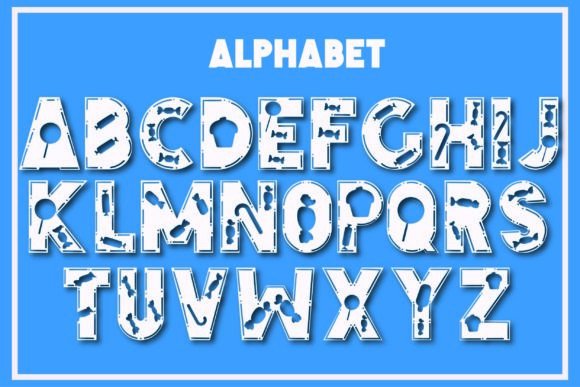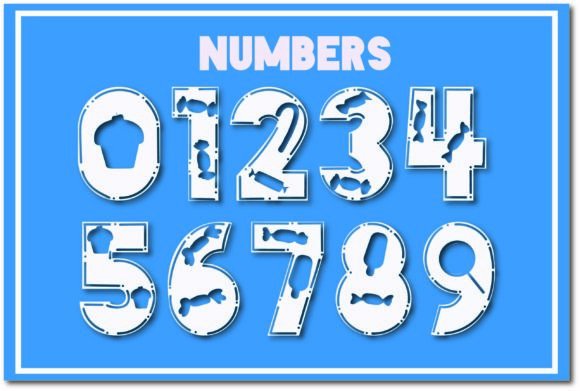
Candy Font: The Sweetest Addition to Your Typography Collection
Are you a designer, crafter, or DIY enthusiast looking for a font that can add a touch of sweetness to your creations? Look no further than the Candy font! This adorable decorative font is perfect for a wide range of projects, from party invitations and baking blogs to candy-themed branding and more. In this article, we’ll dive into the world of Candy font, exploring its features, uses, and benefits, as well as provide tips on how to make the most of this lovely typography.
What is Candy Font?
Candy font is a digital typeface designed to resemble the colorful, playful, and whimsical world of candies. Its letters and numbers are crafted to look like they’re made of sugar, with bold lines, rounded edges, and a dash of sparkle. This font is perfect for adding a pop of fun and personality to any design project. Whether you’re creating a logo, a social media graphic, or a party invitation, Candy font is sure to make your work stand out.
Features of Candy Font
- Cute and Lovely Design: The Candy font boasts a delightful design that’s sure to capture the hearts of anyone who sees it. Its adorable letters and numbers are perfect for creating visually appealing designs that are both fun and engaging.
- High-Quality Resolution: The font is designed with high-quality resolution, ensuring that it looks crisp and clear even when scaled up or down.
- Multilingual Support: The Candy font supports multiple languages, making it a great choice for designers and crafters who work with international clients or create content for a global audience.
- Easily Customizable: The font is easy to customize, allowing you to adjust the size, color, and style to fit your design needs.
Uses of Candy Font
Candy font is a versatile typography that can be used in a wide range of design projects, including:
- Party Invitations: Create adorable party invitations for birthdays, baby showers, and other celebrations.
- Baking Blogs and Recipes: Add a touch of sweetness to your baking blog or recipe posts with the Candy font.
- Candy-Themed Branding: Use the Candy font to create a cohesive brand identity for candy stores, bakeries, or other businesses that specialize in sweet treats.
- Crafting and DIY Projects: Add a playful touch to your crafting and DIY projects, such as handmade cards, gift tags, or scrapbooking pages.
Benefits of Using Candy Font
So, why should you choose the Candy font for your design projects? Here are just a few benefits:
- Adds a Touch of Whimsy: The Candy font adds a playful and whimsical touch to any design project, making it perfect for creating visually appealing and engaging content.
- Enhances Creativity: The font’s unique design and versatility inspire creativity and imagination, helping you to come up with innovative design solutions.
- Perfect for Kids’ Projects: The Candy font is a great choice for projects aimed at kids, such as children’s party invitations, educational materials, or kids’ websites.
Tips for Using Candy Font
To make the most of the Candy font, here are a few tips:
- Pair with Complementary Fonts: Pair the Candy font with complementary fonts, such as sans-serif or script fonts, to create visual interest and contrast.
- Experiment with Colors: Experiment with different colors and gradients to match the Candy font with your brand’s color scheme or design theme.
- Use for Headings and Titles: Use the Candy font for headings and titles to add a pop of fun and personality to your design.
In conclusion, the Candy font is a delightful and versatile typography that’s perfect for designers, crafters, and DIY enthusiasts who want to add a touch of sweetness to their creations. With its cute and lovely design, high-quality resolution, and multilingual support, this font is sure to become a wonderful asset to your font library.